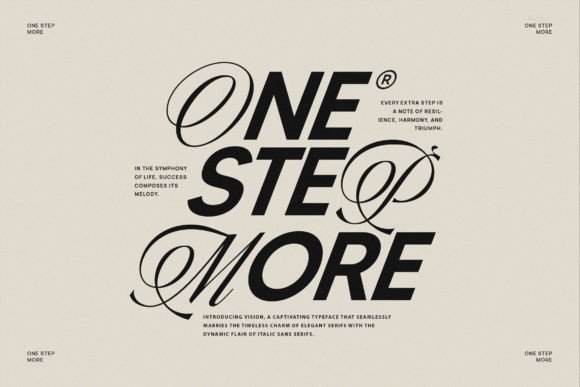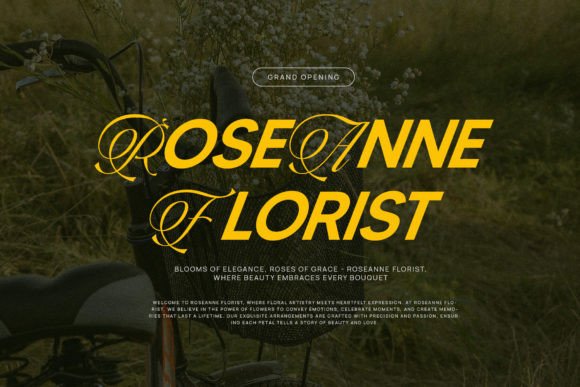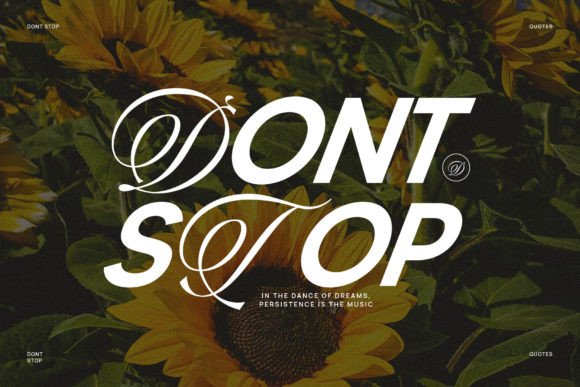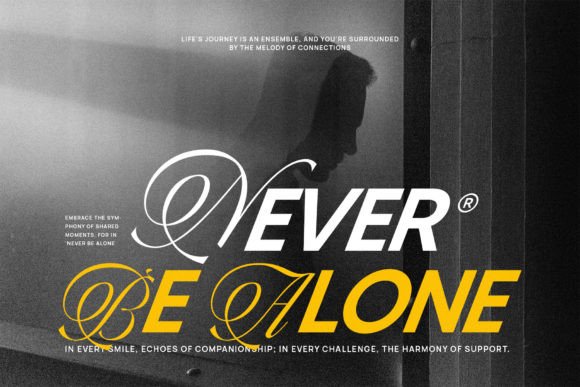
One Step More Font: Elegant Serif for Modern Branding & Logo Design
About the One Step More Font
The One Step More Font offers a perfect balance of form and function for your design needs. One Step More Modern Sans Combination is a sleek and straightforward font duo. It blends simplicity with a touch of modern style, making it perfect for various projects. Whether you’re creating posters, logos, or social media graphics, this font combination adds a clean and professional look to your designs. Take your projects one step further with this versatile and easy-to-use font duo.
This font duo excels in headlines, short body text, and branding applications where a clean, modern aesthetic is desired. It’s particularly effective for logos, posters, and social media graphics, lending a professional yet approachable feel. Avoid using it for lengthy paragraphs or UI elements; its minimalist nature might compromise readability in extended text.
Consider pairing One Step More with a classic serif like Garamond for a sophisticated contrast, or a geometric sans-serif like Futura for a consistent modern feel. A playful script font, such as Allura, could add a touch of personality to projects requiring a more expressive element.
One Step More possesses a confident, modern personality. Its straightforward style suits brands projecting professionalism, innovation, and a touch of sophistication, without being overly austere.
One Step More Font Usage Examples
One Step More Font Example